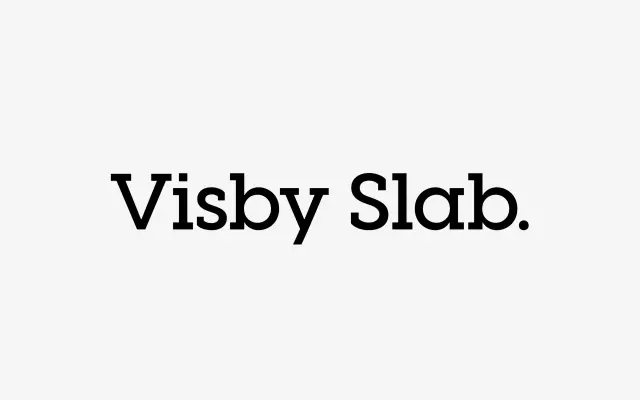
Visby Slab
A geometric slab serif companion to the Visby sans family, spanning eight weights with obliques for headlines and display use.
Built directly on the foundations of Connary Fagen's Visby sans, this slab version carries the same geometric structure into a bolder, bracketed-serif format across sixteen styles. The eight weights run from Thin to Heavy, each with a corresponding oblique, making it versatile across headlines, captions and short-form text. Language support covers a broad sweep of Latin-script languages including Central and Northern European sets.
Described explicitly as a geometric slab serif built on the geometric sans Visby family, with circular forms and uniform stroke weight characteristic of the geometric slab genre.